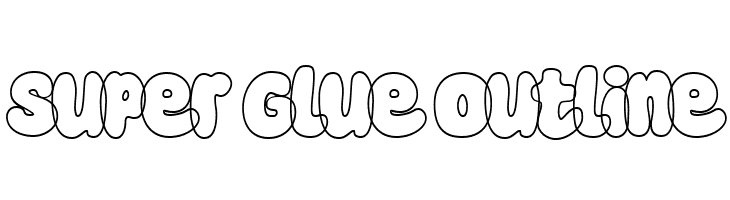
A bold, playful font with rounded, bubble-like characters ideal for fun and whimsical designs.
A bold, rounded font with a playful and whimsical style.
A bold, playful font with rounded, bubbly characters ideal for lively designs.
A bold, playful handwritten font with thick, rounded strokes.
A playful, bold font with rounded edges and a hand-drawn style.
A bold, rounded font with a playful and friendly style.